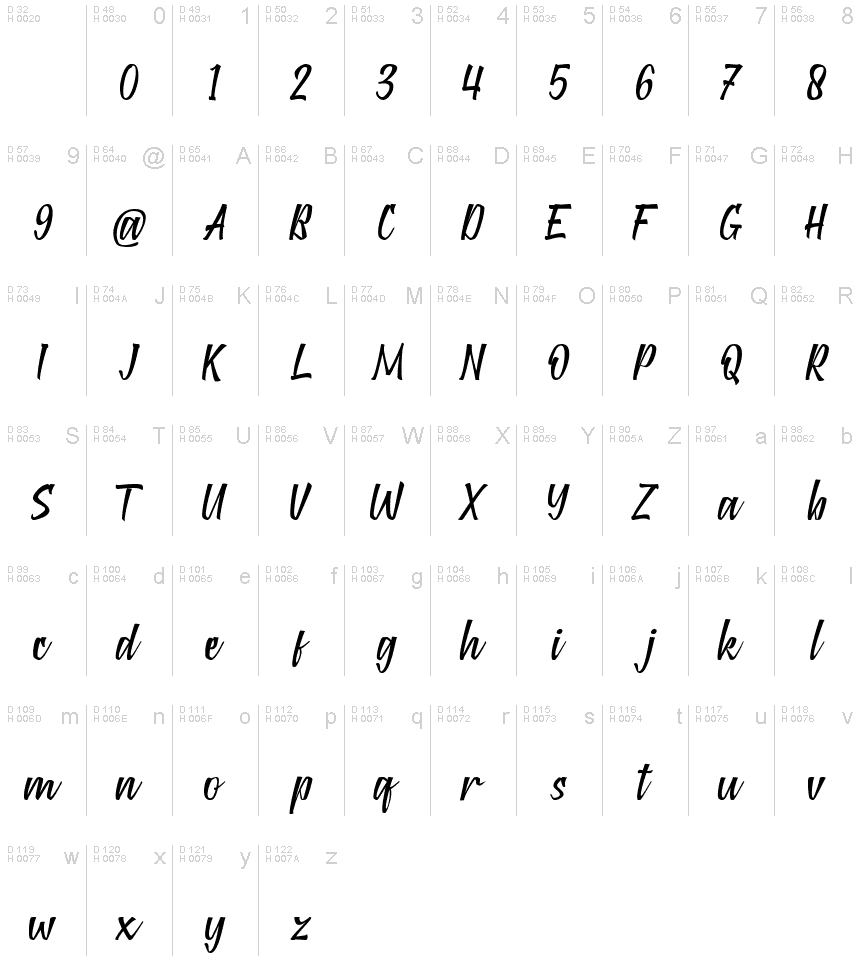
Heazan
Heazan, the newest addition to Mytype Studio's font collection, is a charming handwritten font that adds a personal touch to any project. Its fluid strokes and playful curves bring a sense of warmth and friendliness to your design. This semi-bold font typeface is suitable for various projects such as greeting cards, wedding invitations, product packaging, and branding materials. With its versatility in both print and digital media, Heazan is perfect for creating a unique and memorable statement for your next project. Let Heazan be the voice of your brand or project with its distinct character and approachable style.